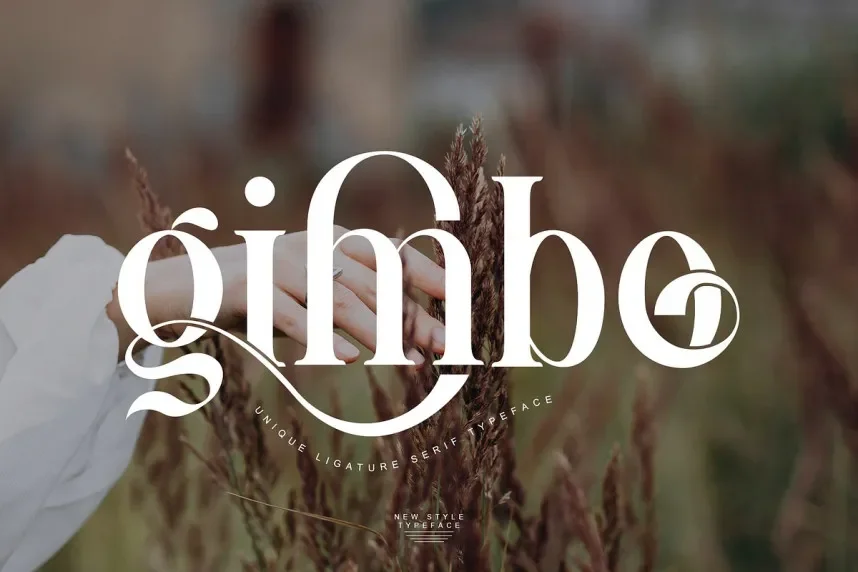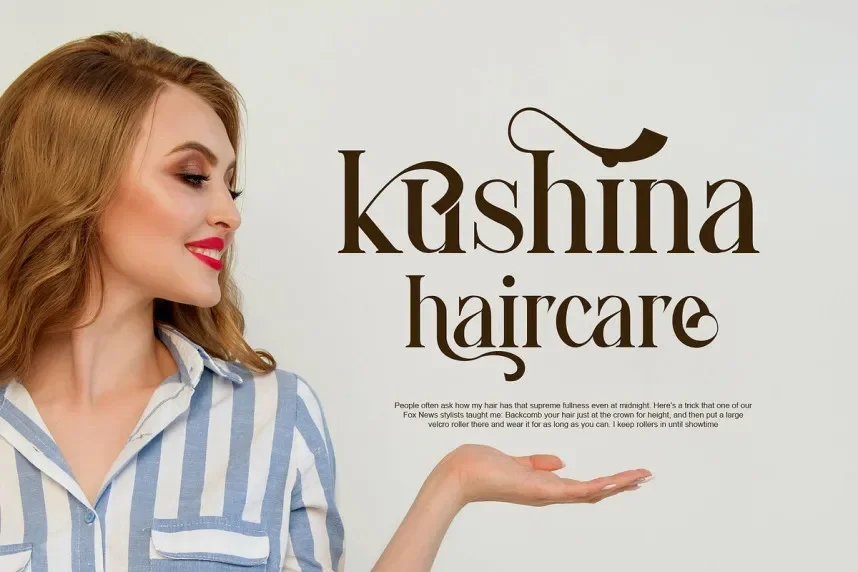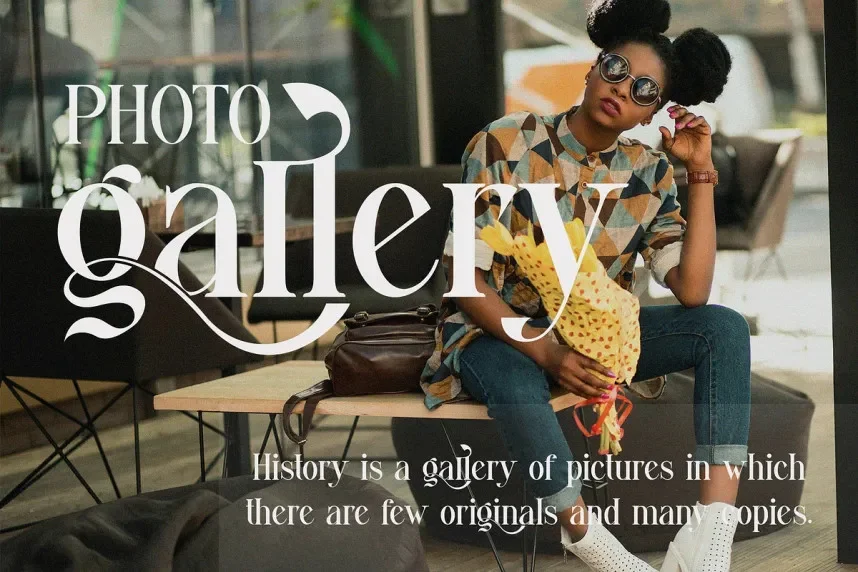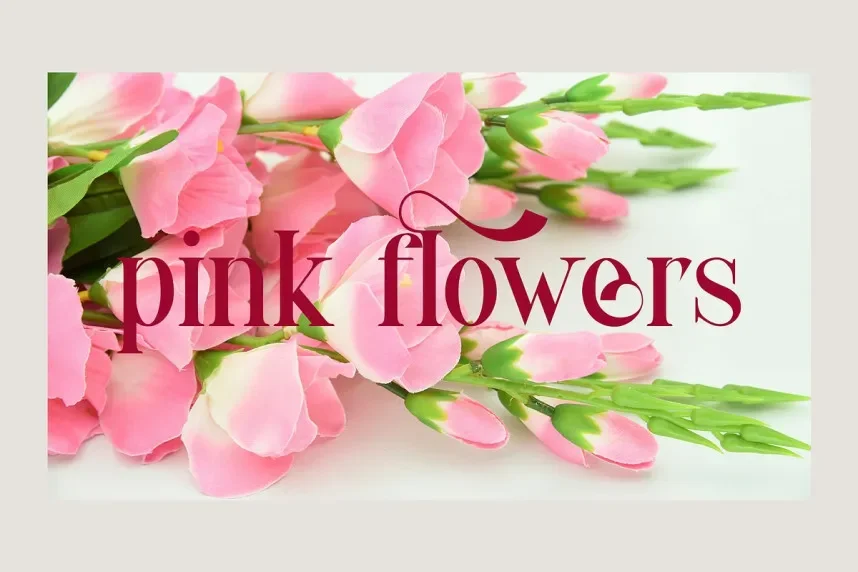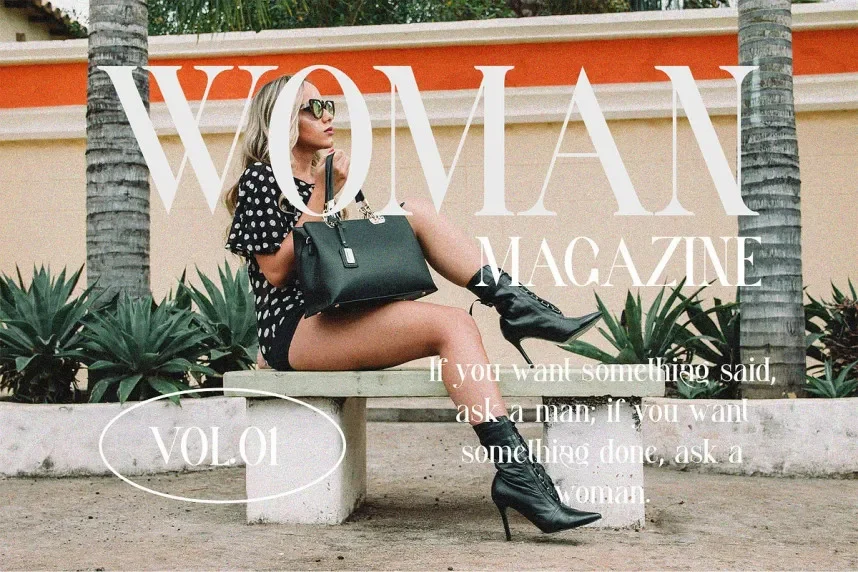
Gimbo Font is a bold, serif typeface with distinctive letterforms and a strong presence. The font’s high contrast between thick and thin strokes gives it a formal yet striking look, making it ideal for branding, editorial designs, and luxury projects.